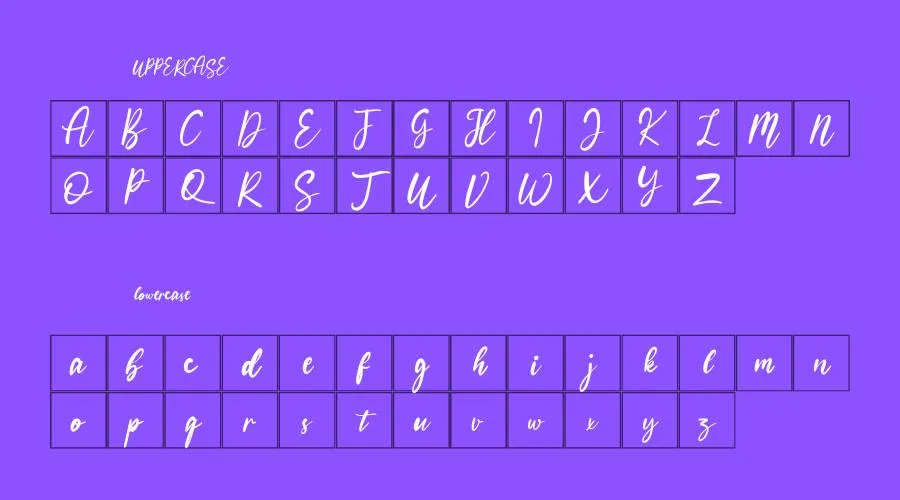
Bohemian Font is a script font with a beautiful texture appearance which is designed by Vultype. This font has flexible characters that will give your task a flawless result. This typeface is available in OTF and TTF file formats feel free to download this font.
Many people use this stylish font for their projects because it is a great style for creating unique designs. Many fonts can be paired with this typeface.
The font includes standard capitalization, variations, fashionable substitutes, and numbers. The font type can be used to create various CSS designs. You can use its online text generator tool to create instant designs just by copy and paste your desired texture. This typeface design also makes a very well paired with century font.